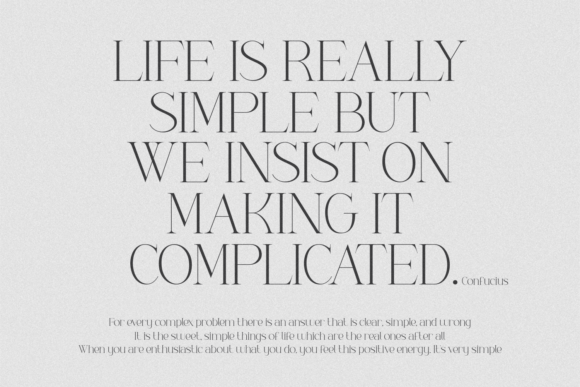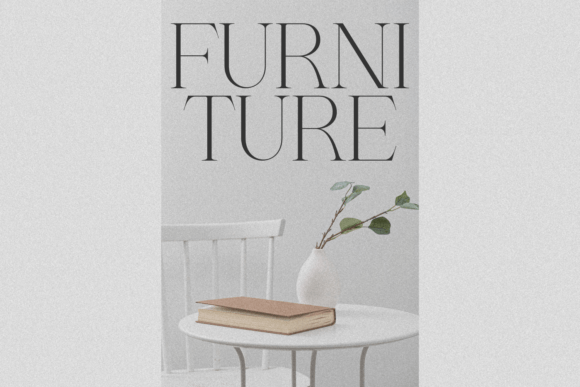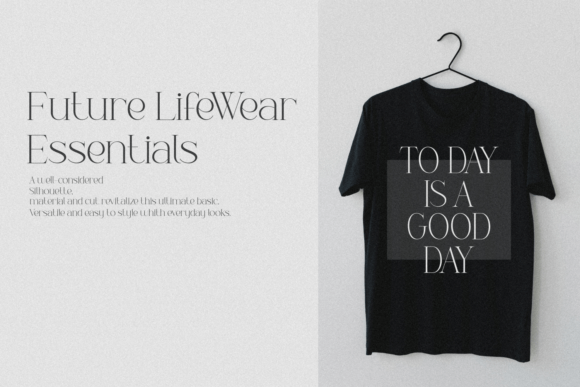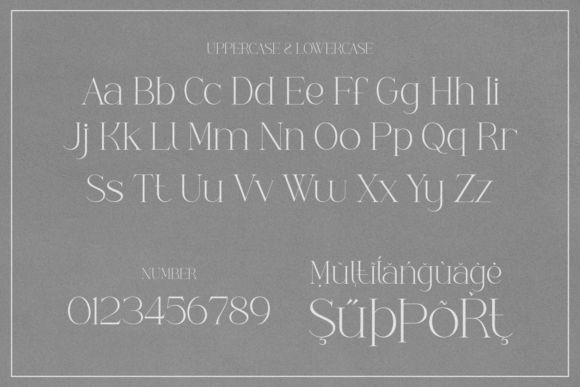
Introduction to Simple Ask Font
As a designer, have you ever found yourself staring at a blank canvas, trying to decide on the perfect font to bring your creative project to life? It’s a moment we’ve all been in – the one where the perfect combination of style and sophistication seems just out of reach. But what if I told you that there’s a font that can make all the difference, elevating your design from good to great?
Enter the Simple Ask Font, a classy and refined serif font that exudes elegance and sophistication. With its clear lines and traditional feel, this font is the perfect addition to any design project, whether you’re working on a formal text, invitation, or sophisticated branding. And the best part? It’s a high-quality design resource that’s available for free download, making it an accessible and valuable tool for designers of all levels.
Whether you’re a seasoned pro or just starting out, the Simple Ask Font is a must-have in your design arsenal. Its versatility and timeless appeal make it a go-to choice for designers looking to create visually stunning projects with a transparent background that truly pops.
Key Features of Simple Ask Font
- Simple, clean, and elegant font with a transparent background, perfect for various design applications
- Includes 100 unique characters, including uppercase and lowercase letters, numbers, and punctuation marks
- Perfect for use in headings, titles, and body text, adding a touch of sophistication to any design project
Honest Review: Simple Ask Font
I recently had the chance to work with the Simple Ask Font and I must say it’s been a great addition to my design resource library. The font is available for free download, which is a huge plus for designers on a budget.
One of the things that stands out about the Simple Ask Font is its high quality and versatility. It’s perfect for a wide range of creative projects, from logos to brochures and even digital designs. The font’s clean and modern design makes it easy to read and visually appealing.
Here are some of the things that work well with the Simple Ask Font:
- ✨ High quality and crisp typography
- ✨ Perfect for both digital and print designs
- ✨ Includes a transparent background, making it easy to use in various design scenarios
However, I do have to mention a few limitations:
- ⚠️ Limited font styles and weights (only 3 available)
- ⚠️ May not be suitable for complex or detailed designs
Overall, I’m really impressed with the Simple Ask Font and would definitely recommend it to fellow designers. Its high quality and versatility make it a great addition to any design library, and the free download option is a huge bonus.
The Simple Ask Font is a versatile design resource that can be used in a variety of creative projects, such as logos, brochures, and social media graphics. Its high-quality design makes it perfect for any project that requires a clean and modern look.
To get the most out of the Simple Ask Font, use it on a transparent background to create a clean and modern look. You can also combine it with other design elements to create a unique and eye-catching design.
The Simple Ask Font is perfect for use in creative projects, such as logos, brochures, and social media graphics. It is also great for use in presentations and documents that require a clean and modern look.